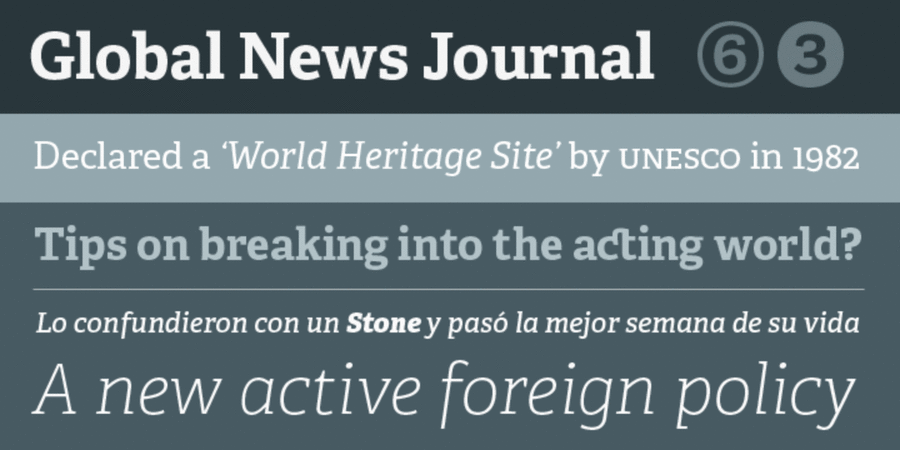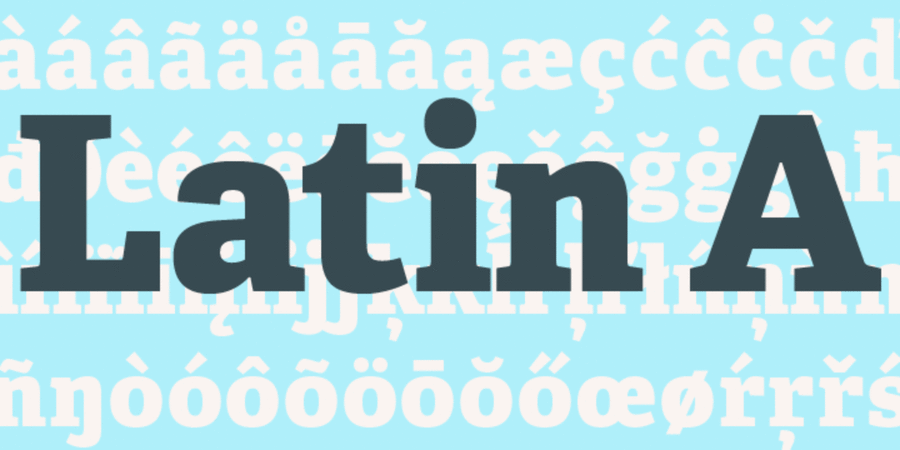
Adelle is a slab serif typeface conceived specifically for intensive editorial use, mainly in newspapers and magazines, its personality and flexibility make it a real multiple-purpose typeface.
The intermediate weights deliver a very legible and neutral look when used in text sizes, providing the usual robustness expected in a newspaper font. The unobstrusive appearance, excellent texture and slightly dark color allow it to behave flawlessly in continuous text setting, even in the most demanding editorial applications.
As it becomes larger in print, Adelle shows its personality through a series of measured particularities that make it easy to remember and identify. It has 14 styles, ranging from light to heavy, with more than 900 characters per font. Its energetic character, so inherent to slab serif fonts, becomes evident as the typeface is used for subheadings and headlines.
The OpenType Pro package of Adelle includes nearly 900 characters per weight, including small caps, fractions, old style and lining numbers, scientific superior/inferior figures, complete ordinal and inferior alphabet, and a set of symbols and arrows. It supports over 40 languages that use the Latin extended alphabet and Cyrillic. Adelle was designed by Veronika Burian, Jose Scaglione and released by TypeTogether foundry in 2009.